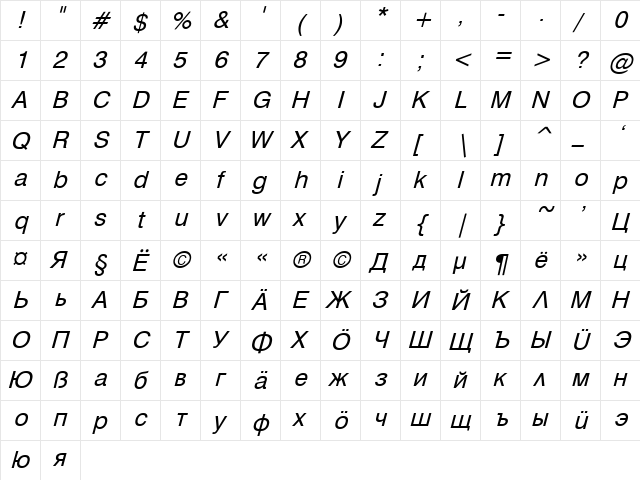
Hebar 02 Italic
Design Context for Hebar 02 Typeface
Hebar 02 takes a measured approach to typography — its balanced proportions and neutral character make it a reliable workhorse for both digital and print work. Its italic angle brings a sense of urgency and motion to the letterforms.
Pro Tip: Try Hebar 02 for annotation and caption copy alongside an upright companion — the contrast in angle creates a dynamic but ordered typographic system.